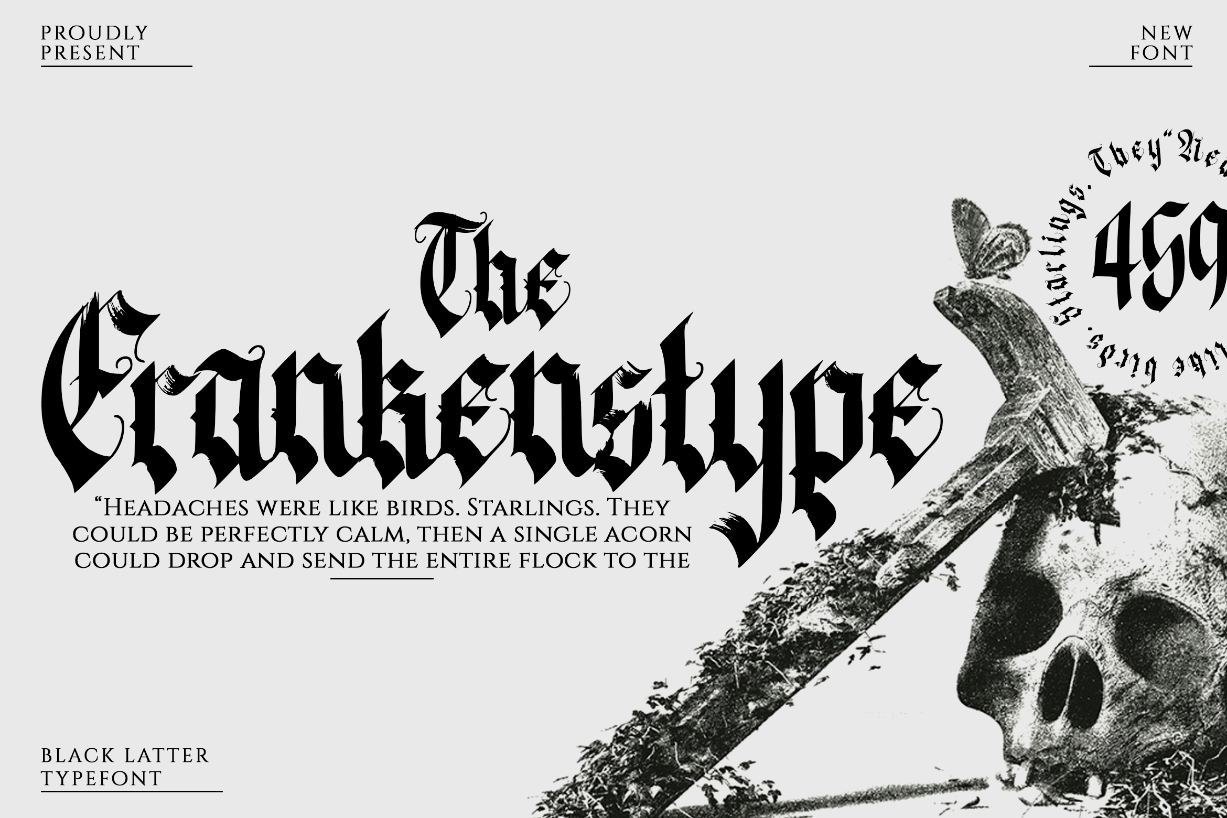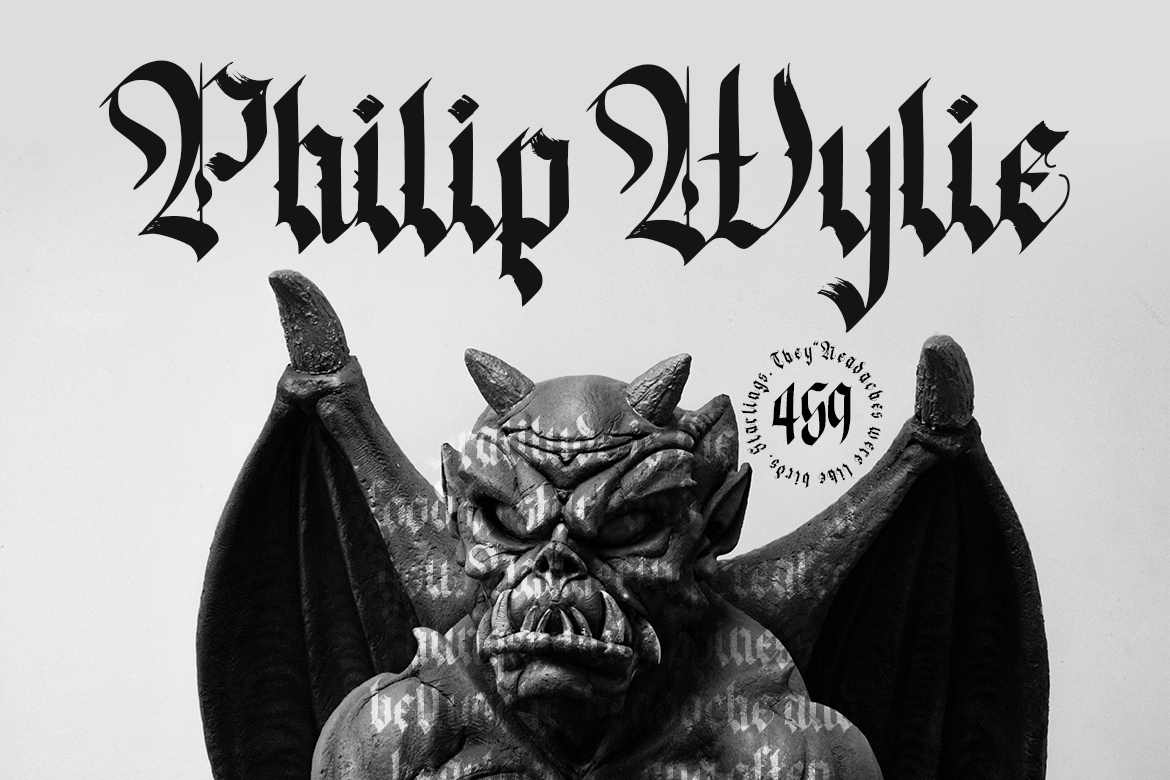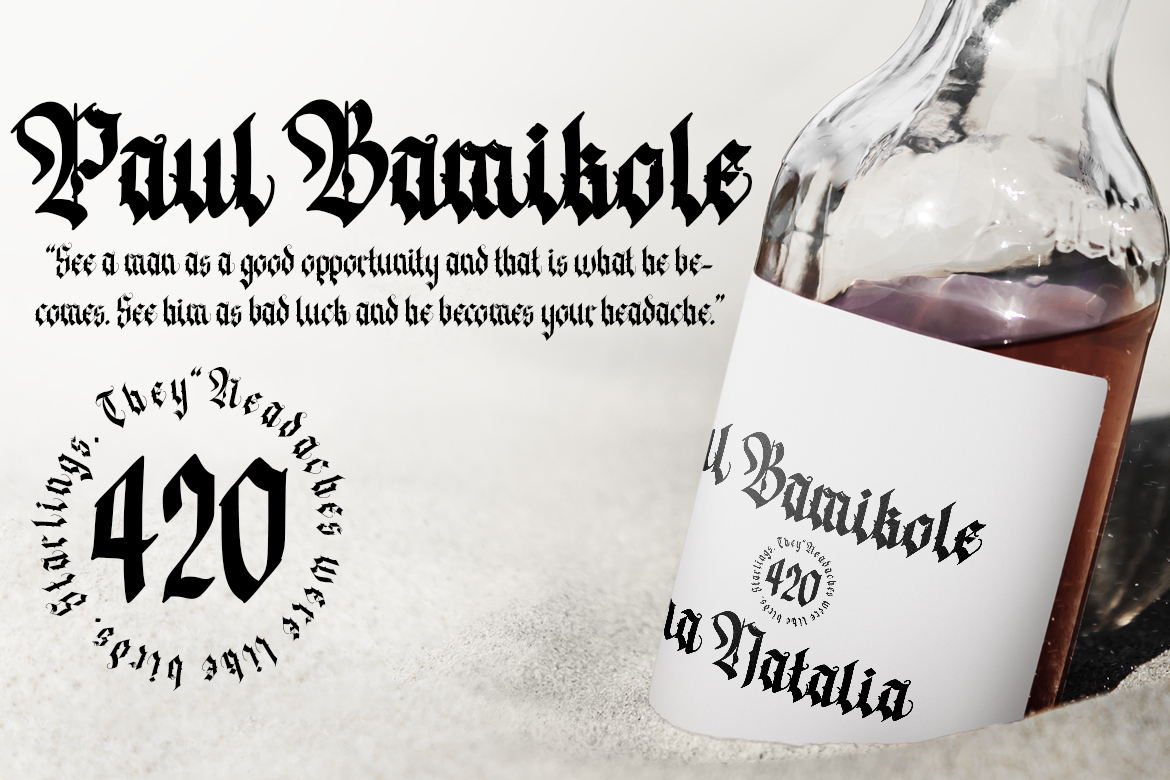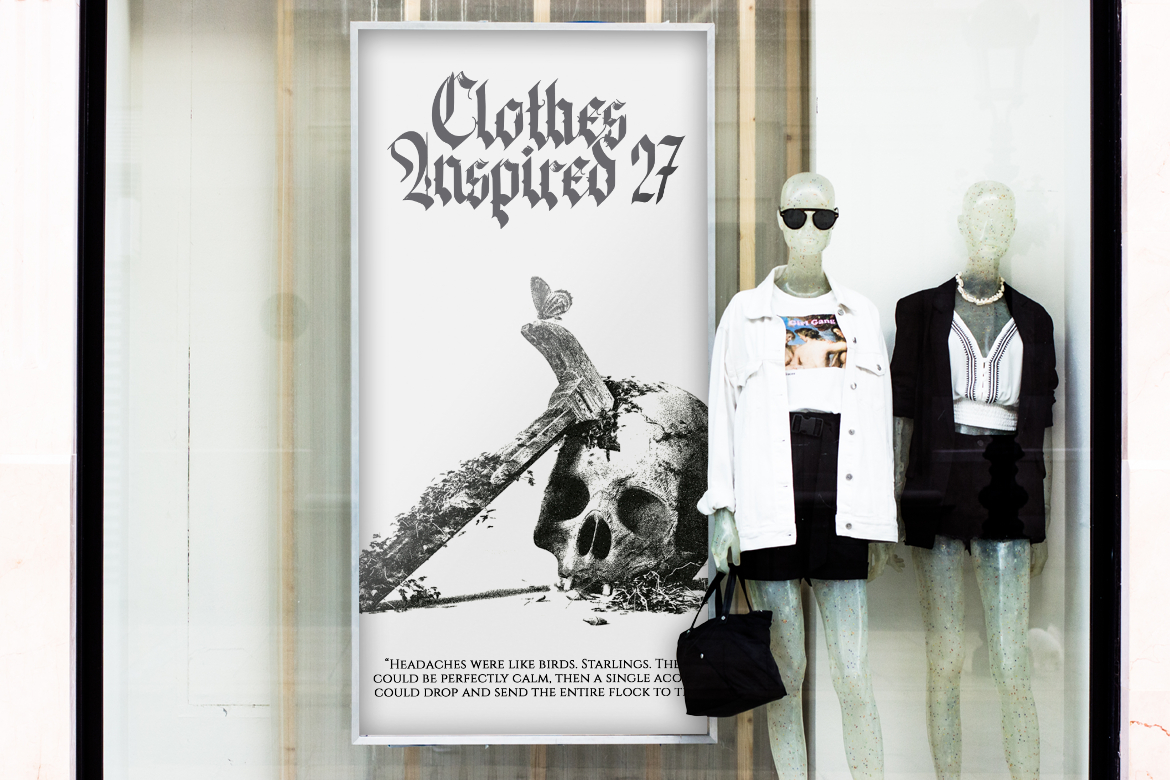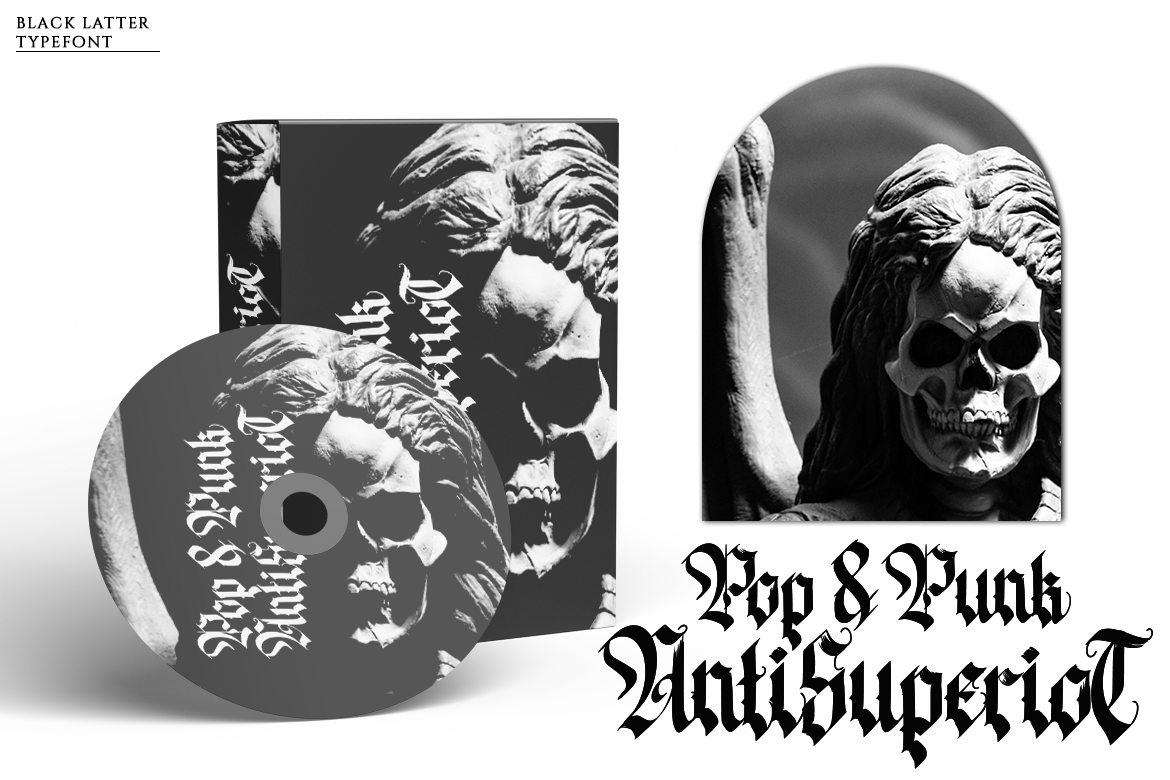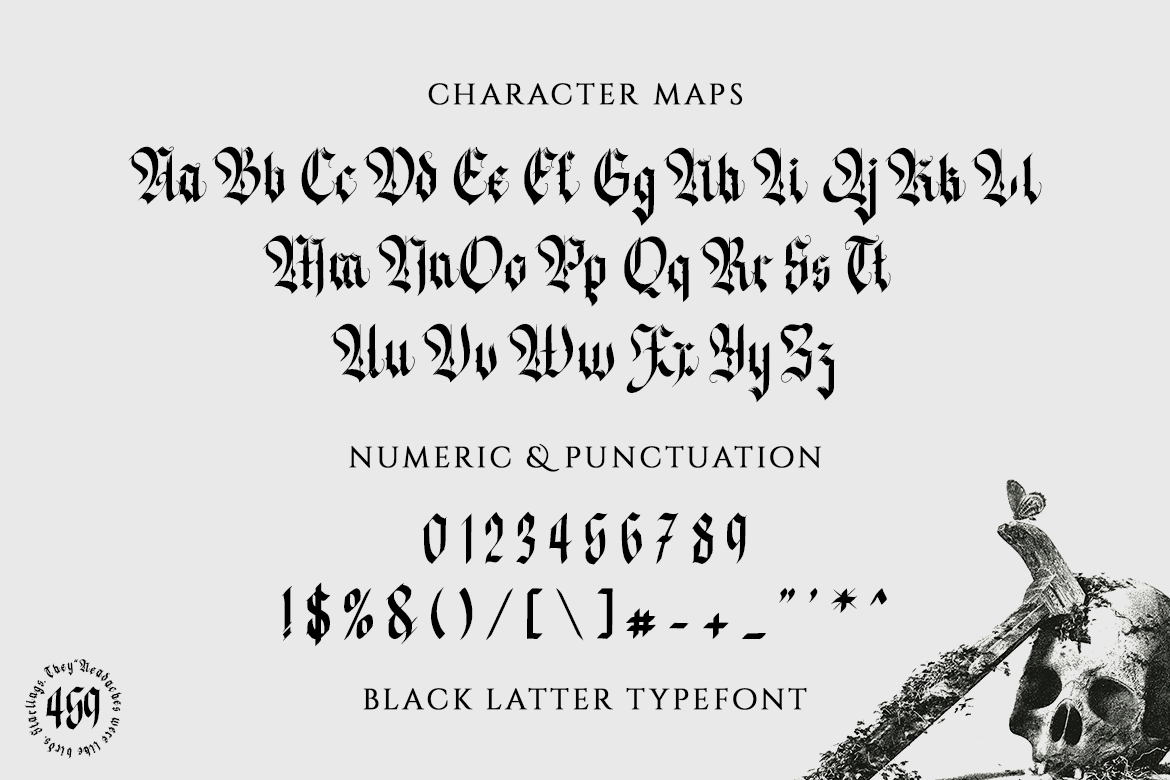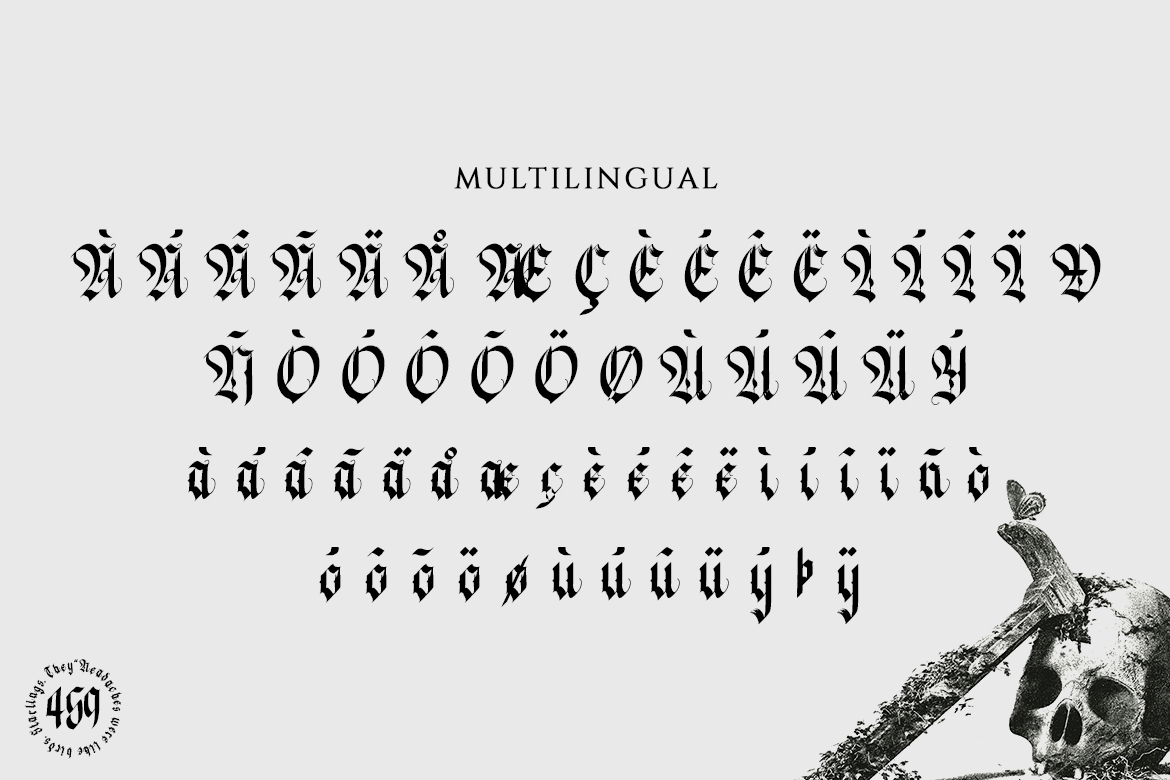
The Frankenstype Font
About The Frankenstype Font
The Frankenstype is an elegant and classic blackletter font that will impress with its stylish features. Use it for product packaging, branding, or other projects that need bold and daring typography!